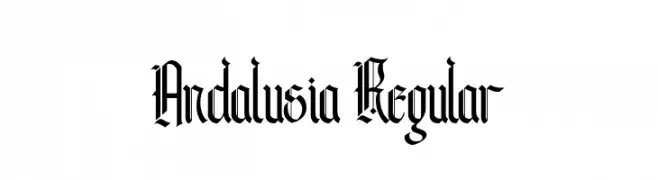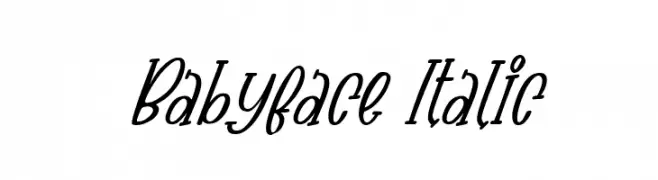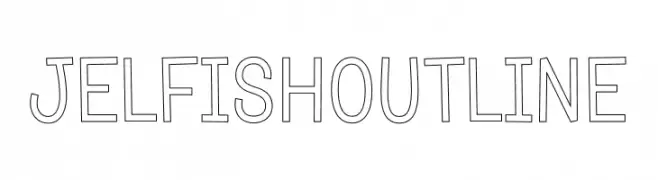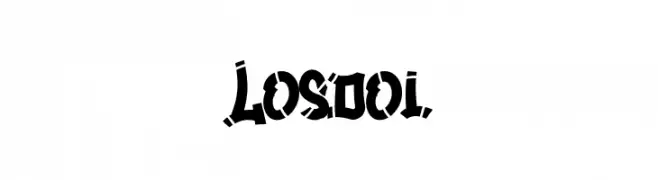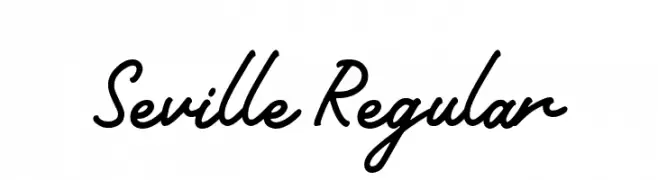
A bold, outlined font with a modern geometric design.
A dynamic and flowing italic font with elegant cursive letterforms.
A bold, graffiti-inspired font with sharp angles and an urban aesthetic.
A bold, playful font with rounded edges and a hand-drawn feel.
A dynamic and fluid script font with elegant curves and a stylish appearance.
A bold, angular Blackletter-inspired font with intricate detailing.
A bold, elegant font with a modern yet classic style.
A bold, expressive script font with flowing, cursive letterforms.
A classic, ornate font with Gothic influences and intricate detailing.
A bold, dynamic script font with fluid, energetic strokes and a modern elegance.